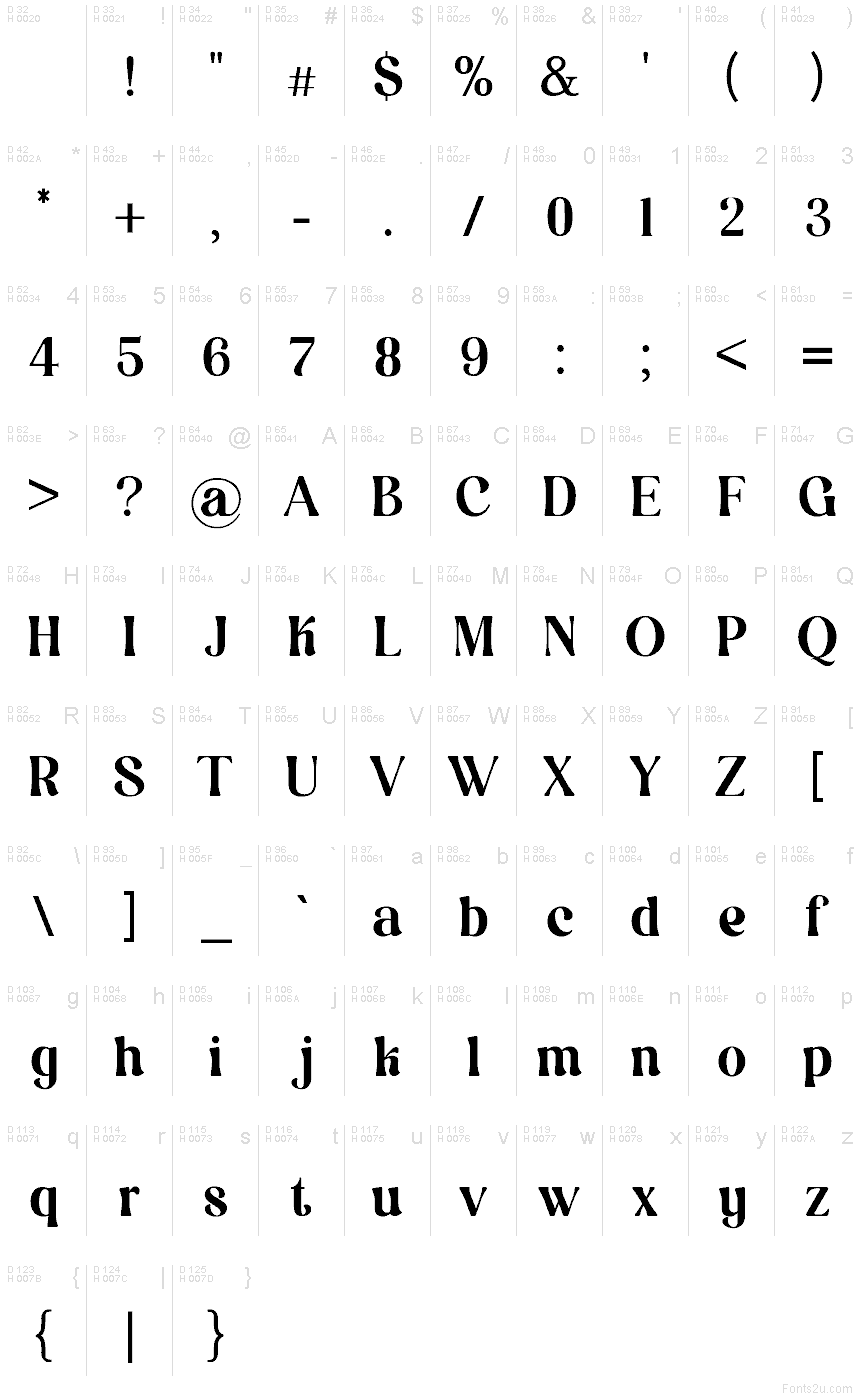
RETROACTIVE Regular
Retroactive font by UI Creative is a bold, retro display typeface inspired by timeless designs. Its classic and sophisticated style exudes an elegant and vintage feel, making it perfect for projects seeking a touch of nostalgic charm and formality in their visual appeal.
Leverage this free display font for magazines, labels, signage, branding materials, marketing campaigns, packaging designs, social media graphics or ads. It is also ideal for posters and book covers which can leave an impressive impact with decorations used sparingly.